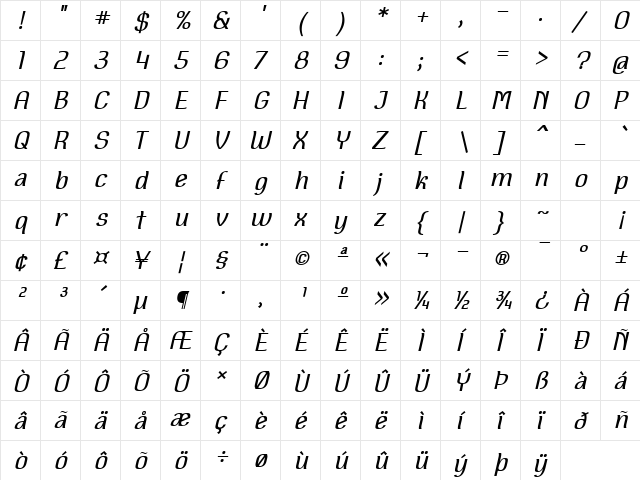
Square Antiqua Oblique
Design Context for Square Antiqua Typeface
Square Antiqua takes a measured approach to typography — its balanced proportions and neutral character make it a reliable workhorse for both digital and print work. The slanted form adds forward momentum and visual energy.
Pro Tip: Use Square Antiqua for emphasis, pull quotes, and subheadings where its slanted energy can add rhythm to the layout.